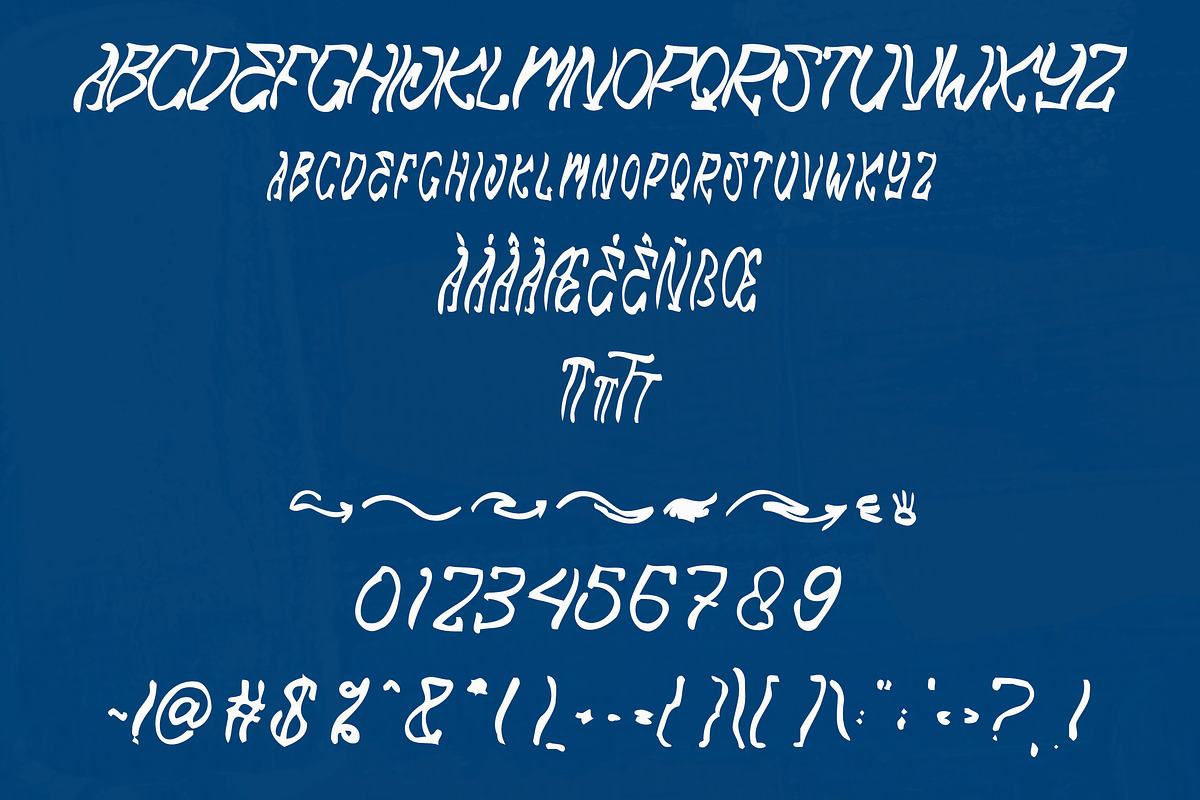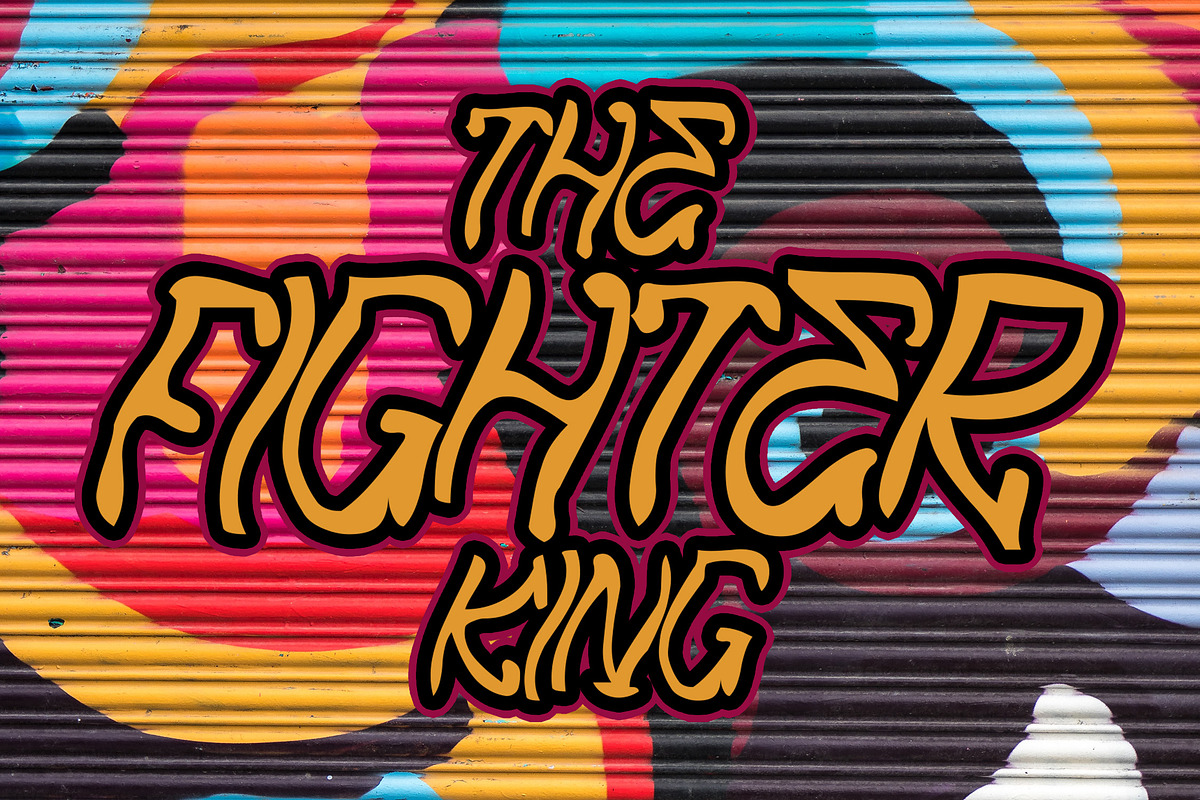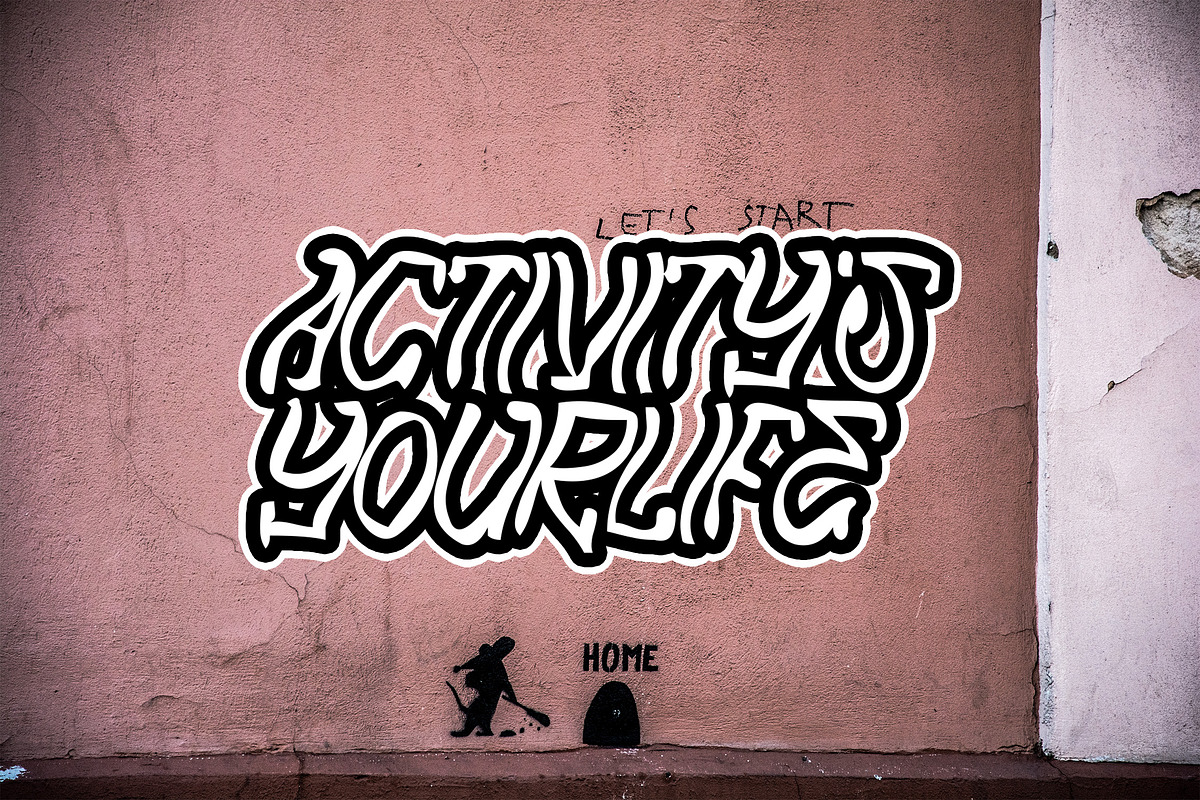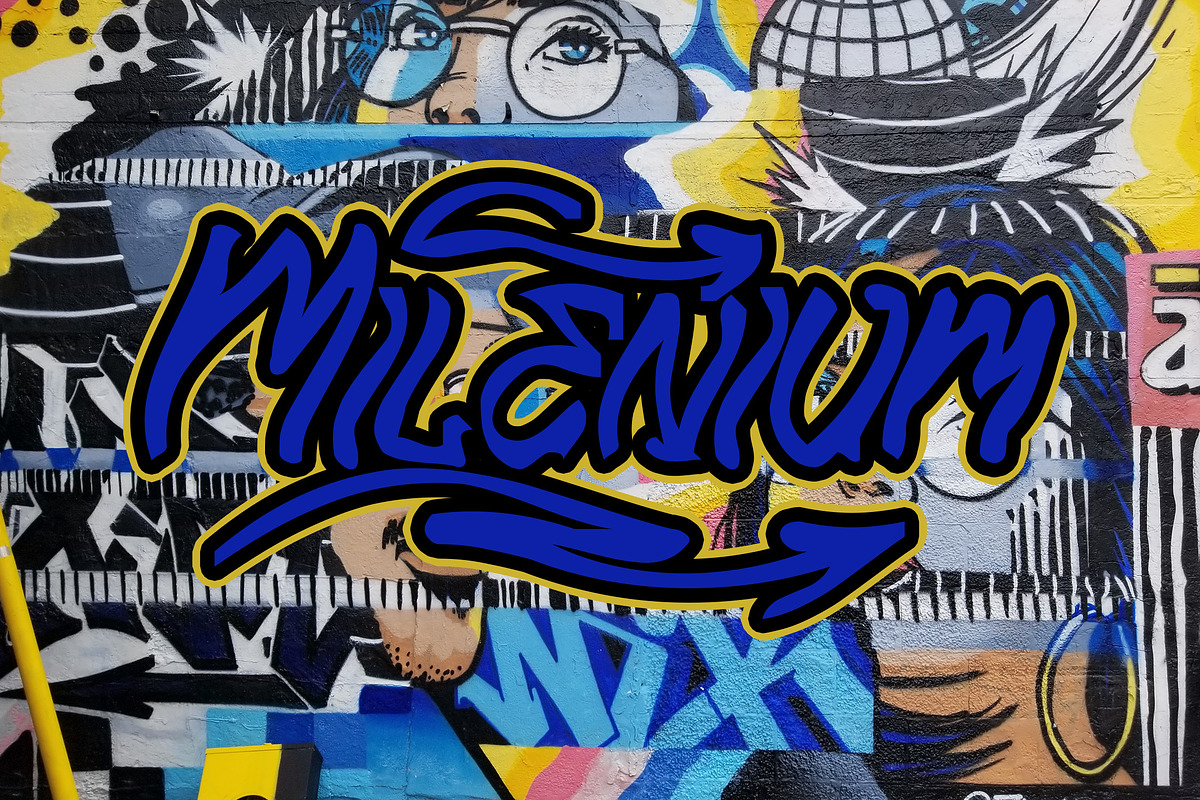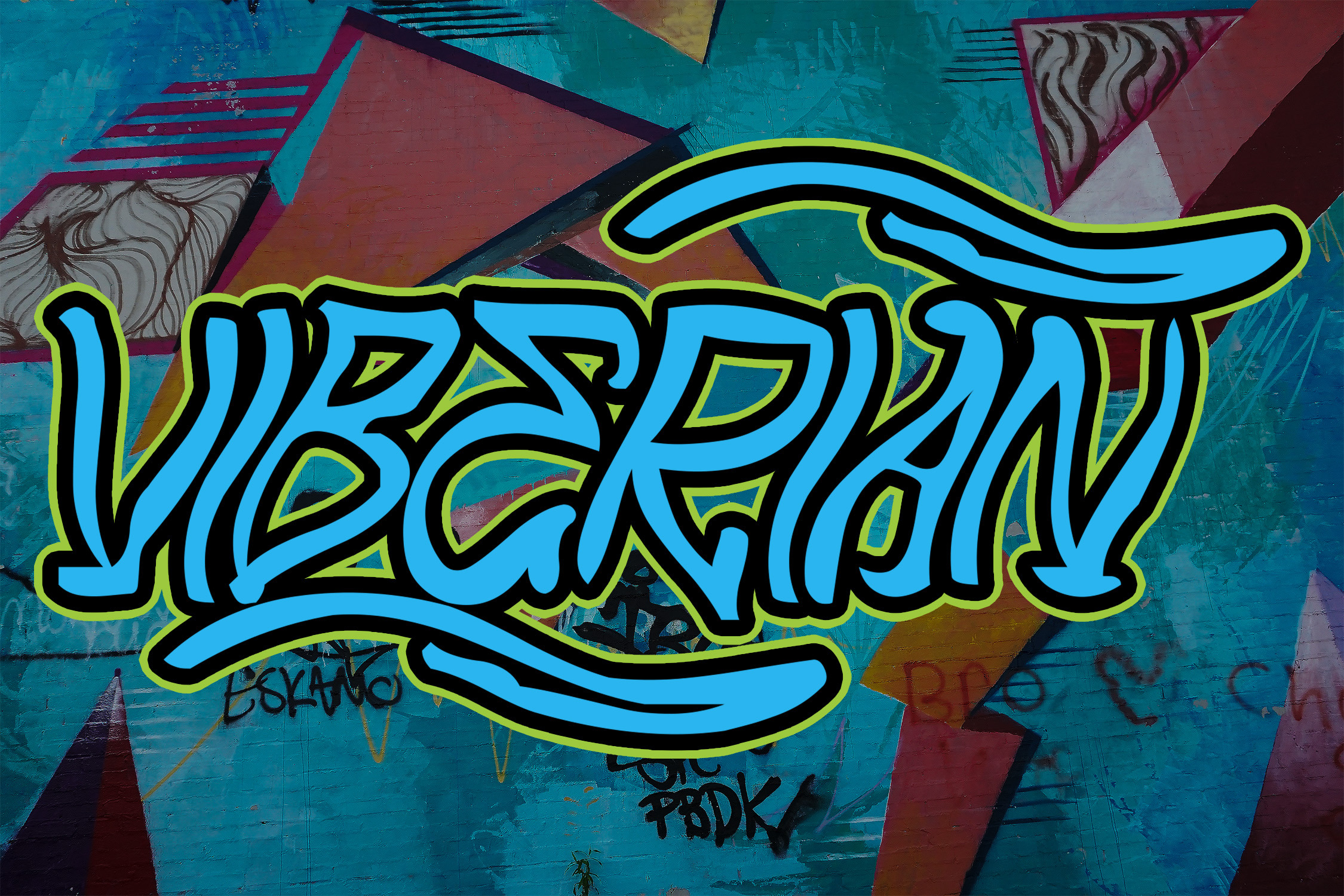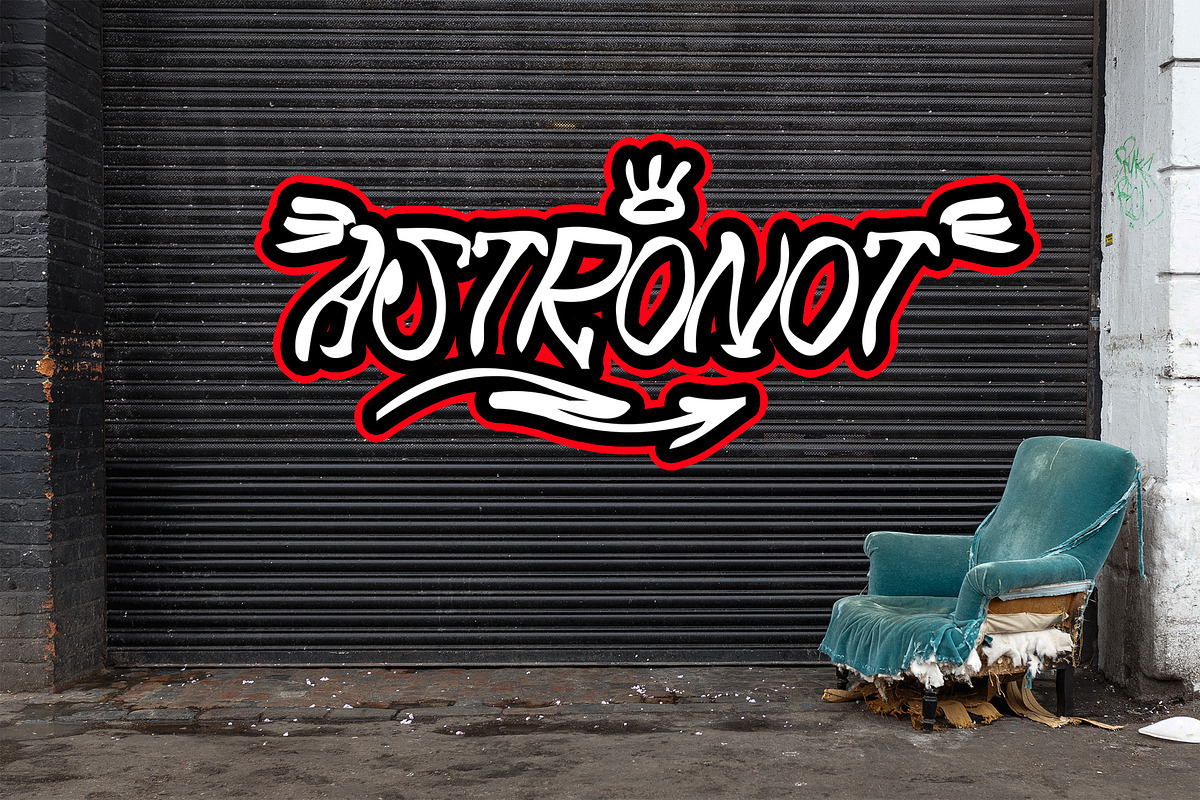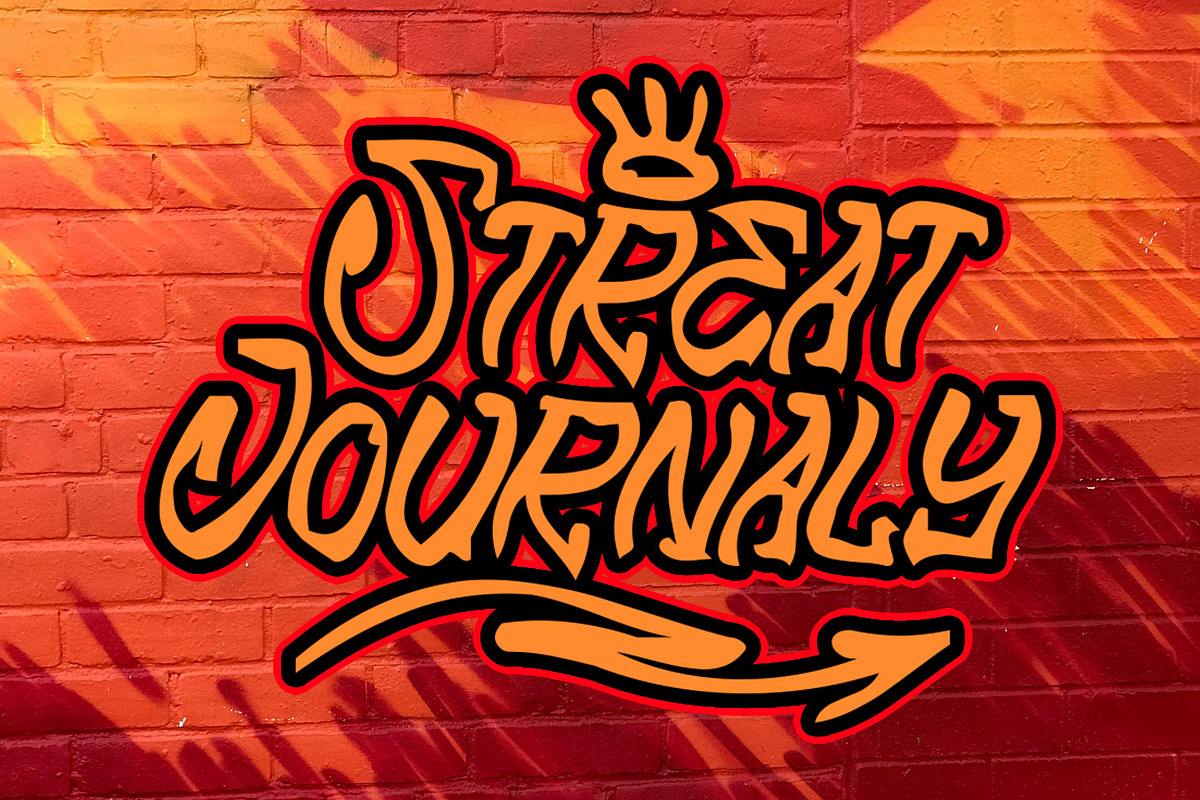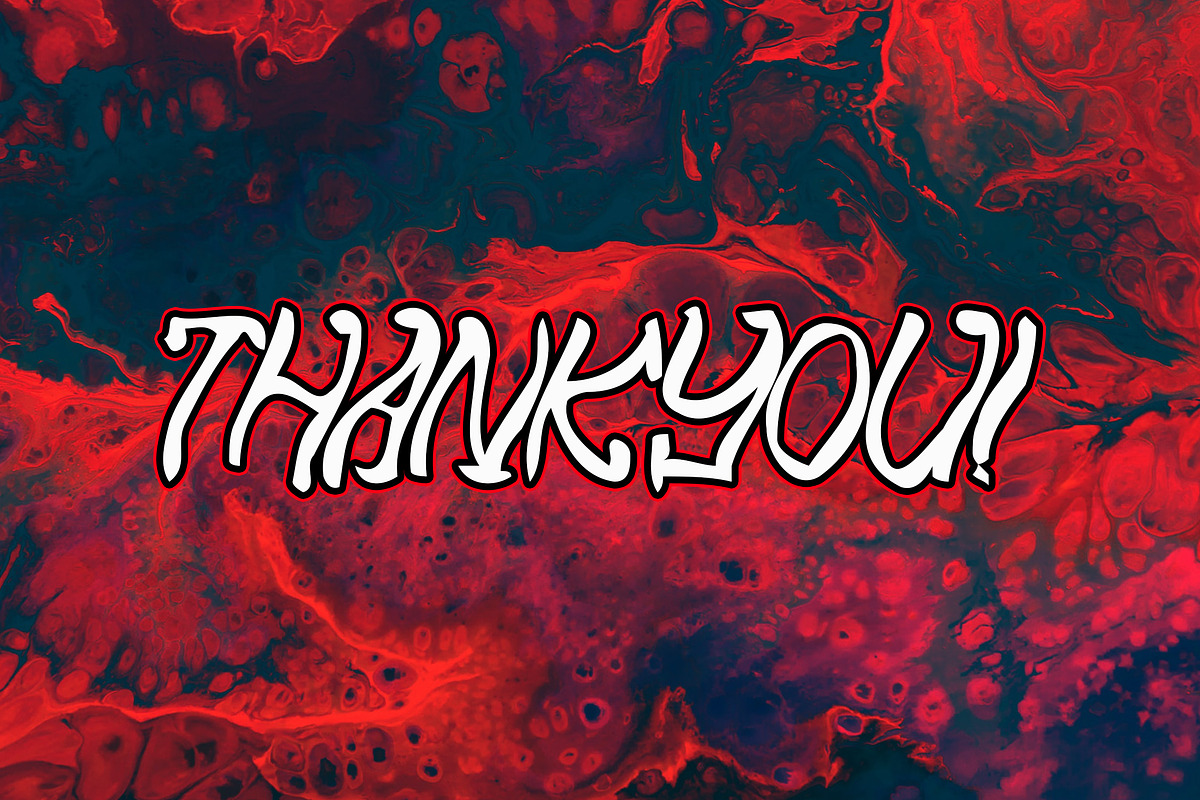
VIBERIAN Rough Brush Font
VIBERIAN Brush Font
VIBERIAN is a rough handbrush-style font with unique character shapes, perfect for creating bold and striking designs. Its raw and dynamic look makes it ideal for logos, branding, posters, and other creative projects.